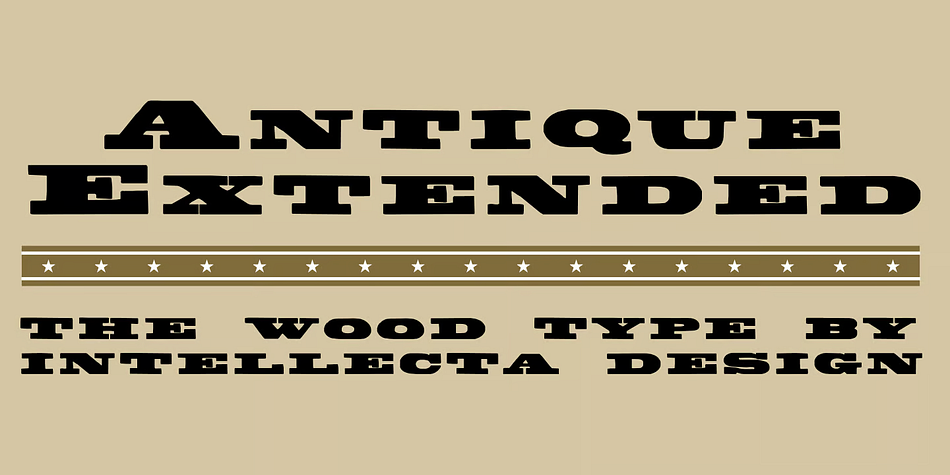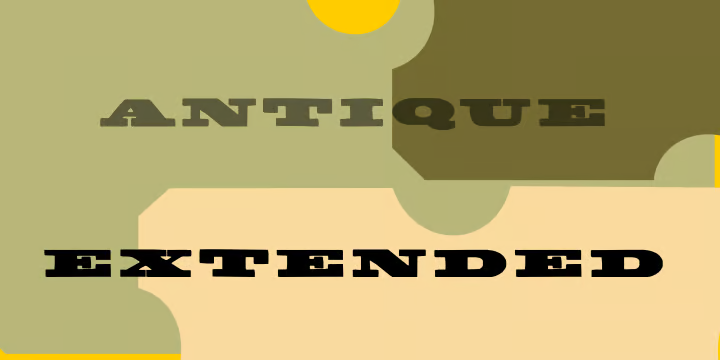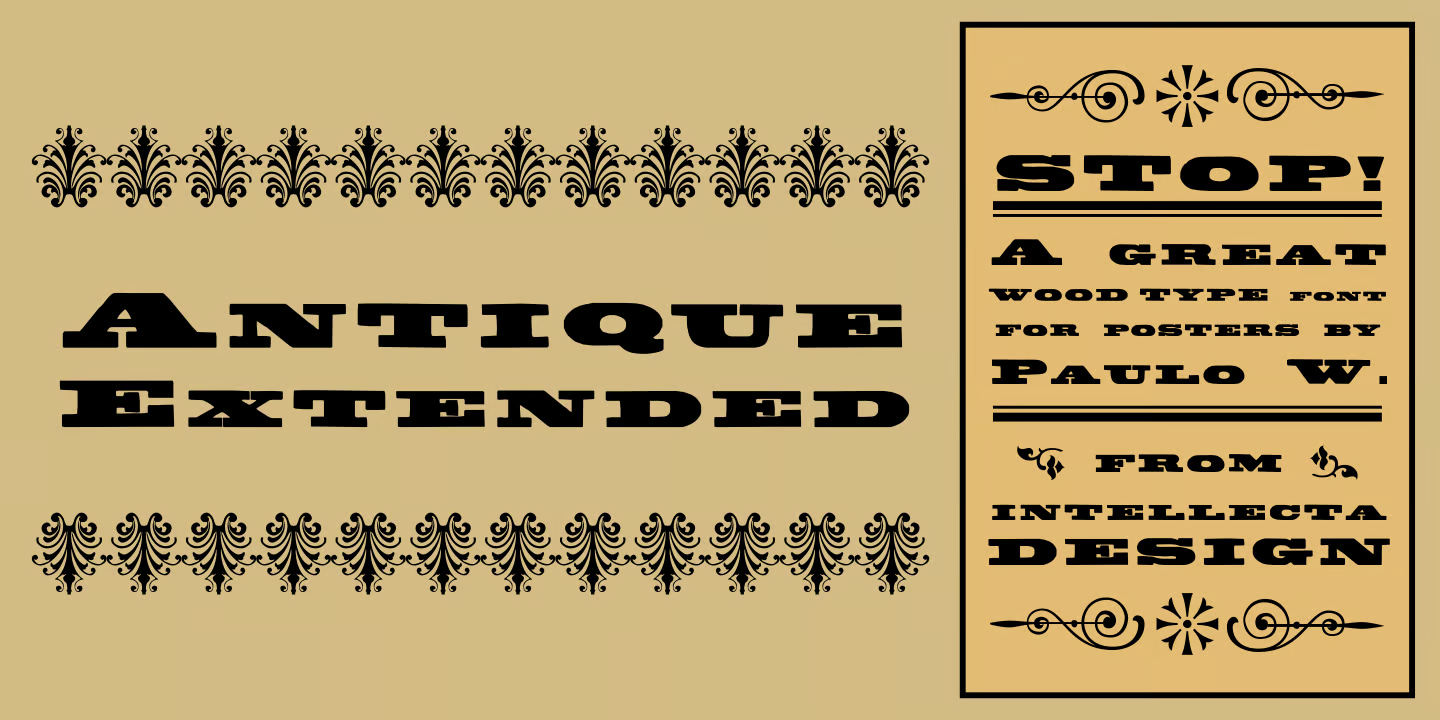
Antique Extended
Designed by Paulo W, Antique Extended is a wood type font family published by Intellecta Design.
A slab serif wood typeface. Digitized from classic sources.